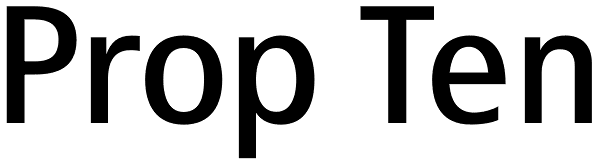
Prop Ten
Some years ago we developed a monospaced 12 pitch sans serif for a client. We also created a 10 pitch version that was later discarded. PropTen is the 10 pitch version modified to proportional widths. The name PropTen refers to 'Proportional 10...
Prop Ten
Prop Ten Bold